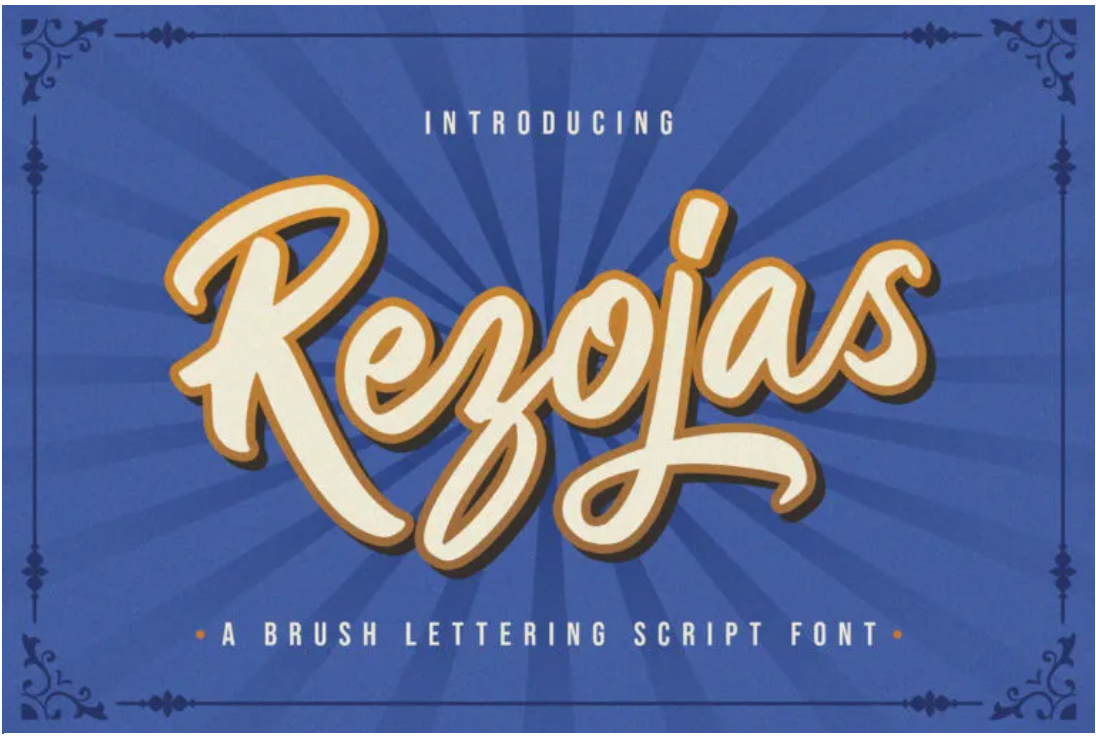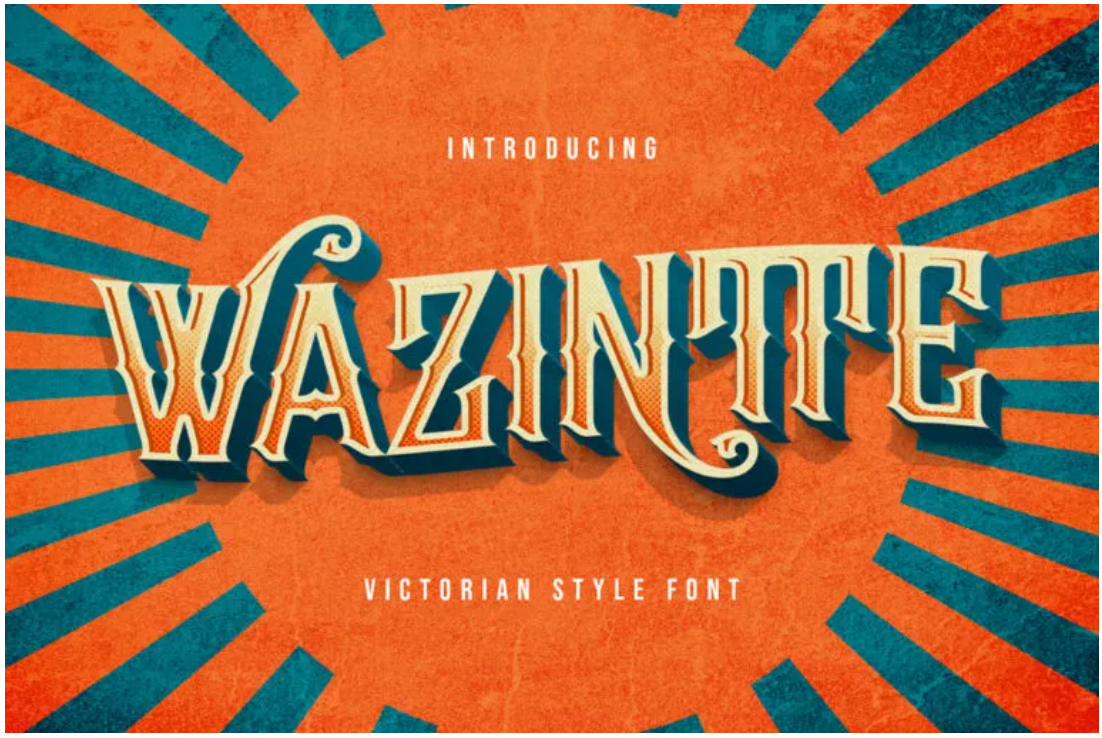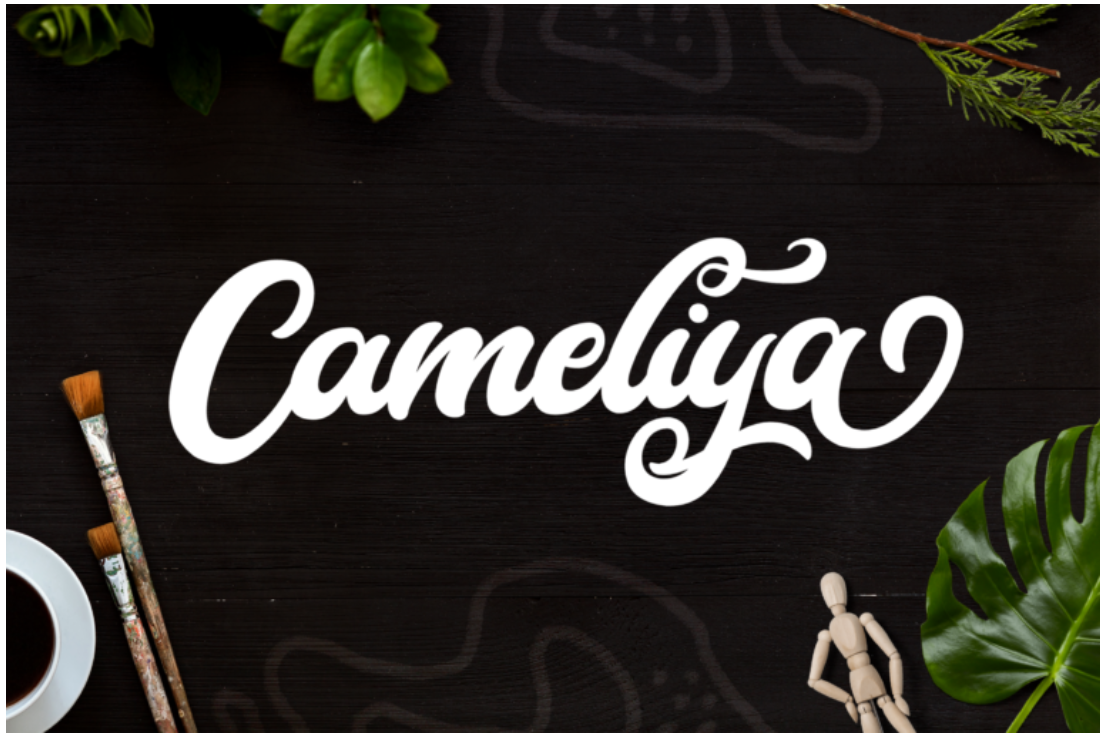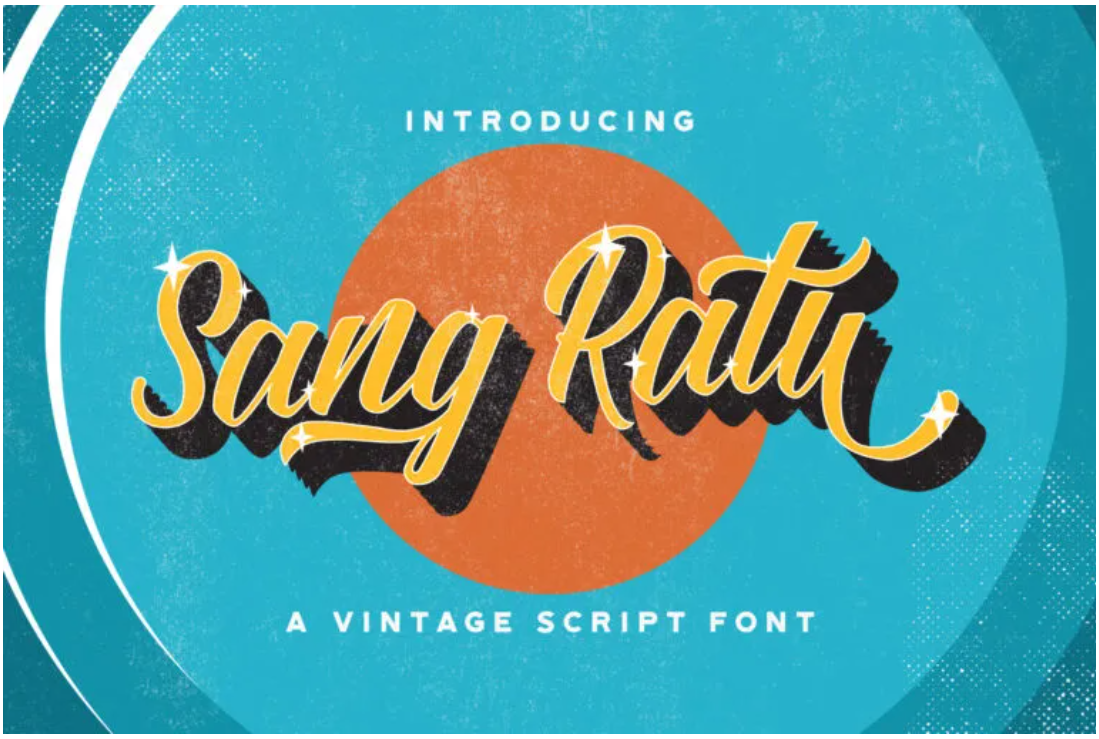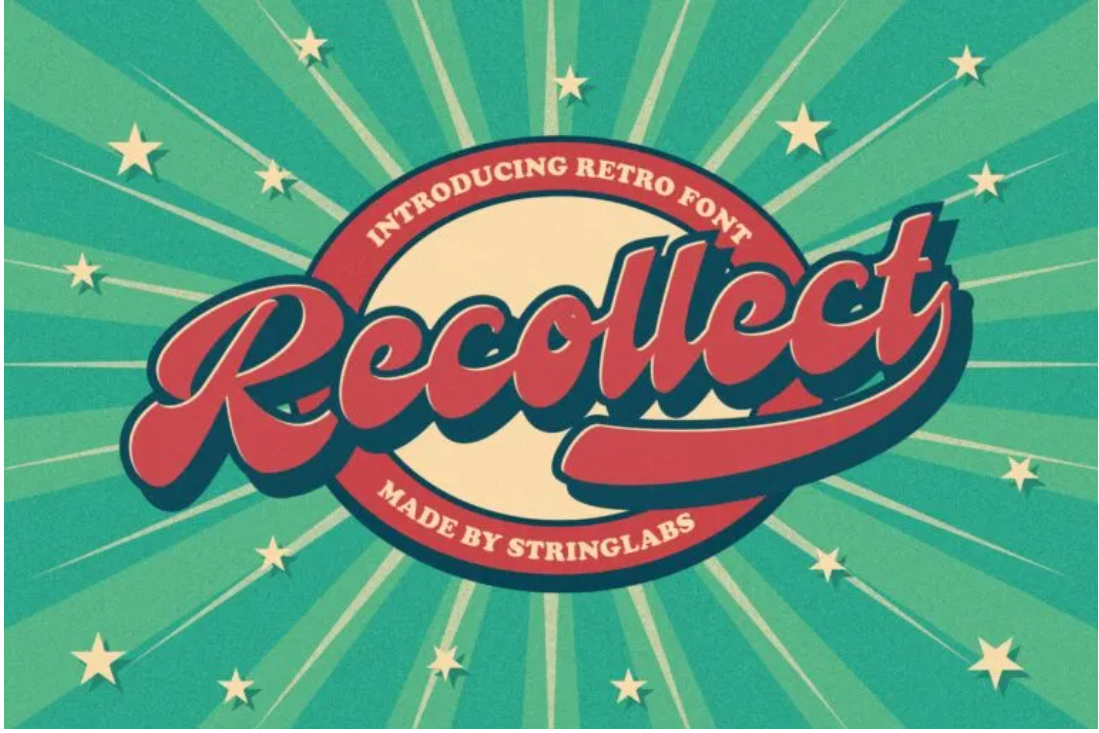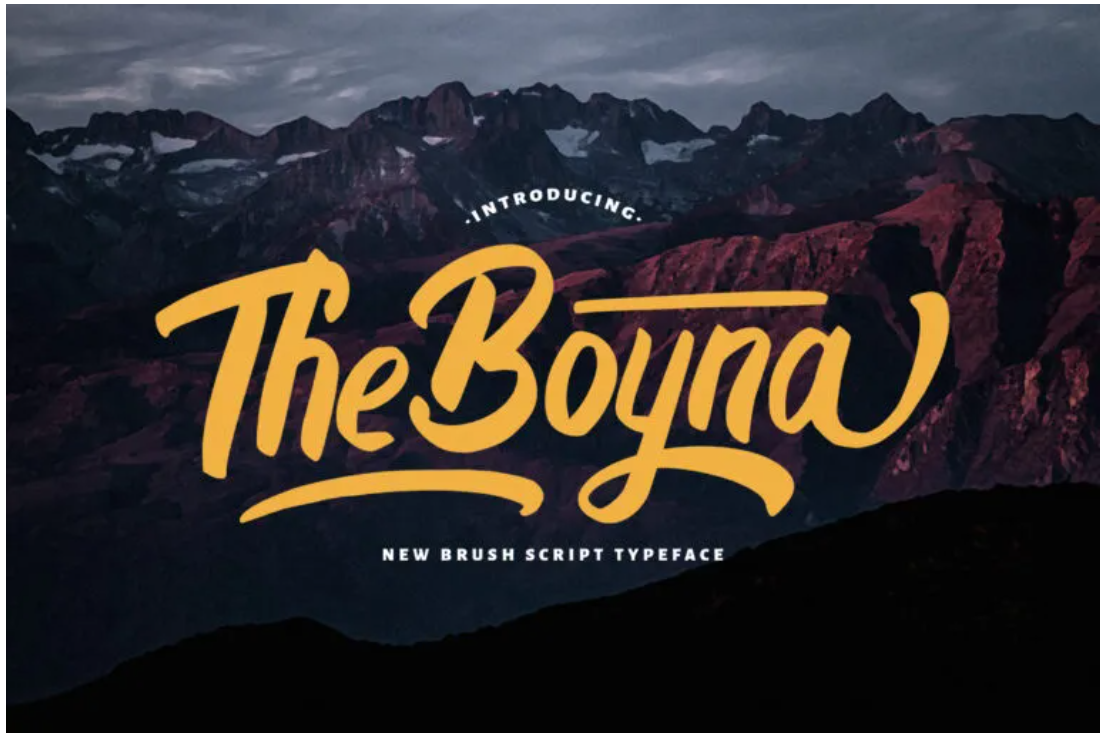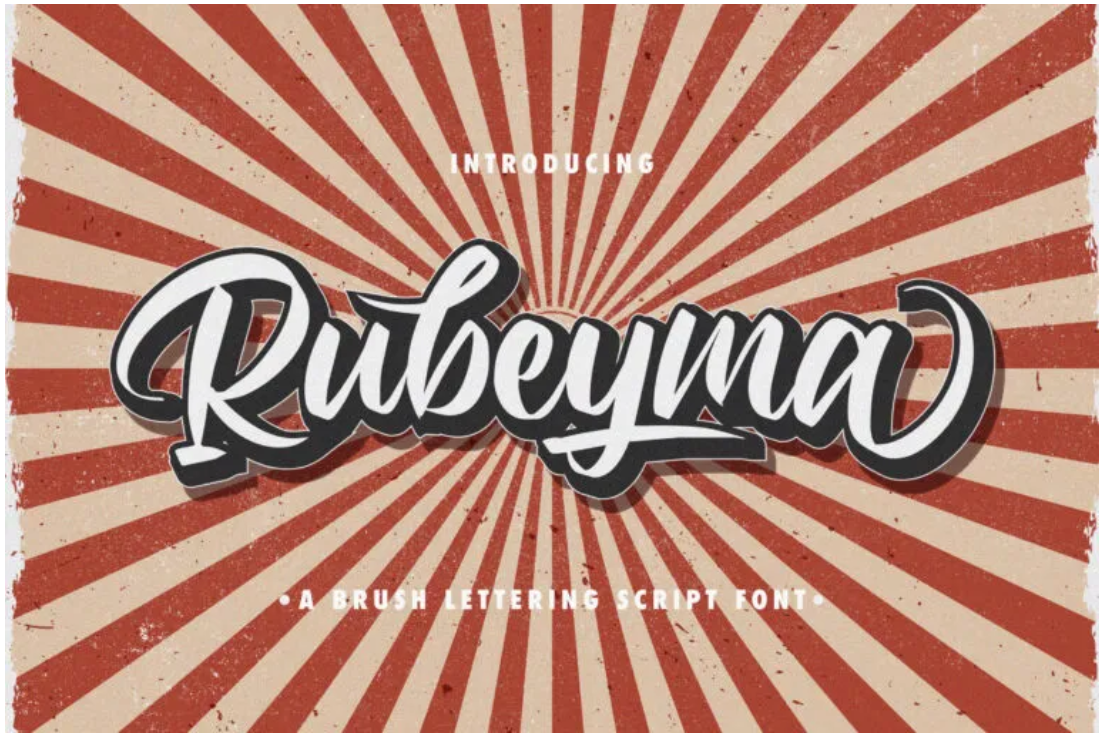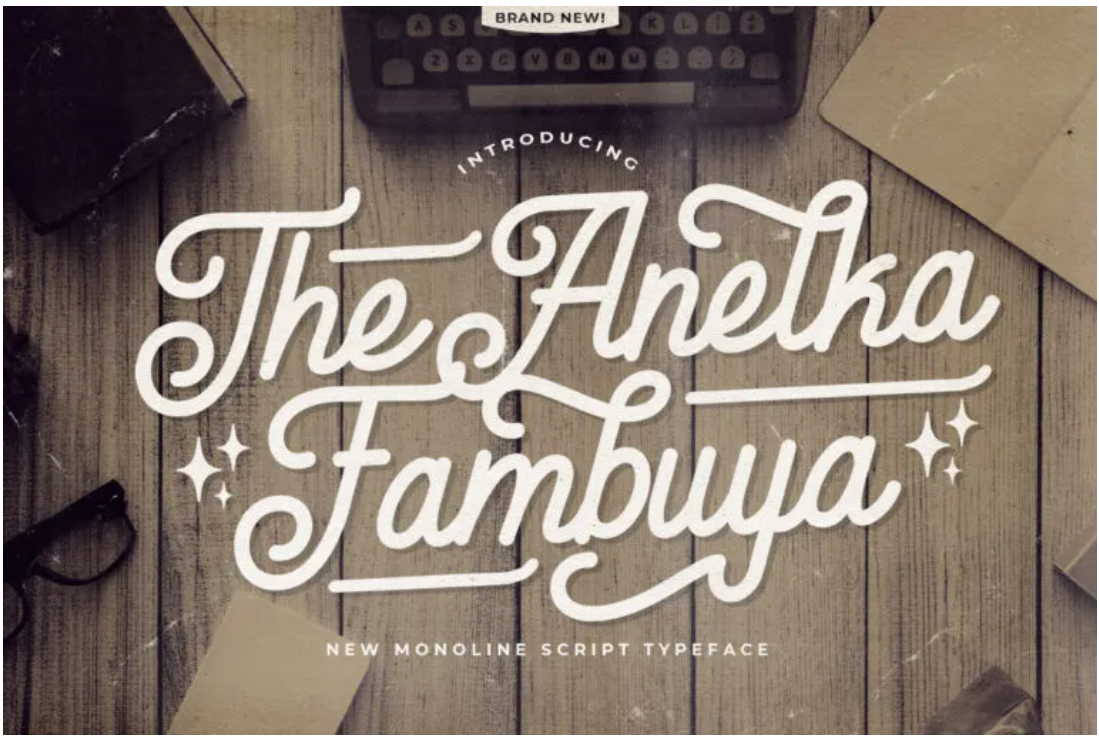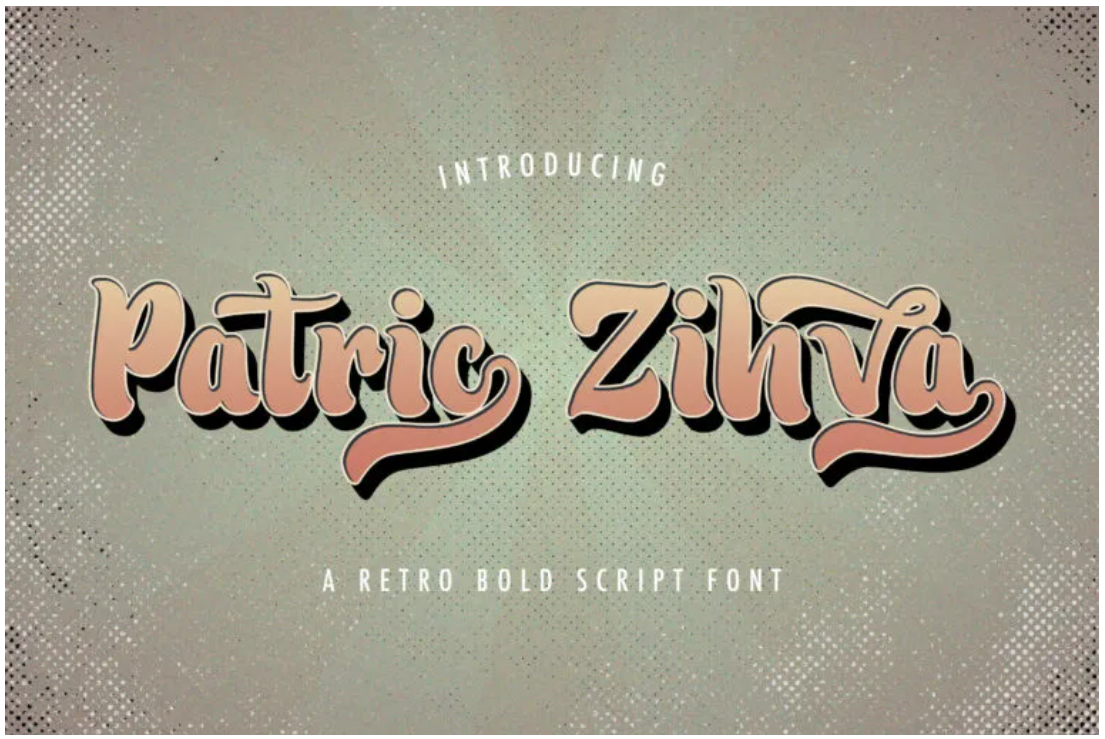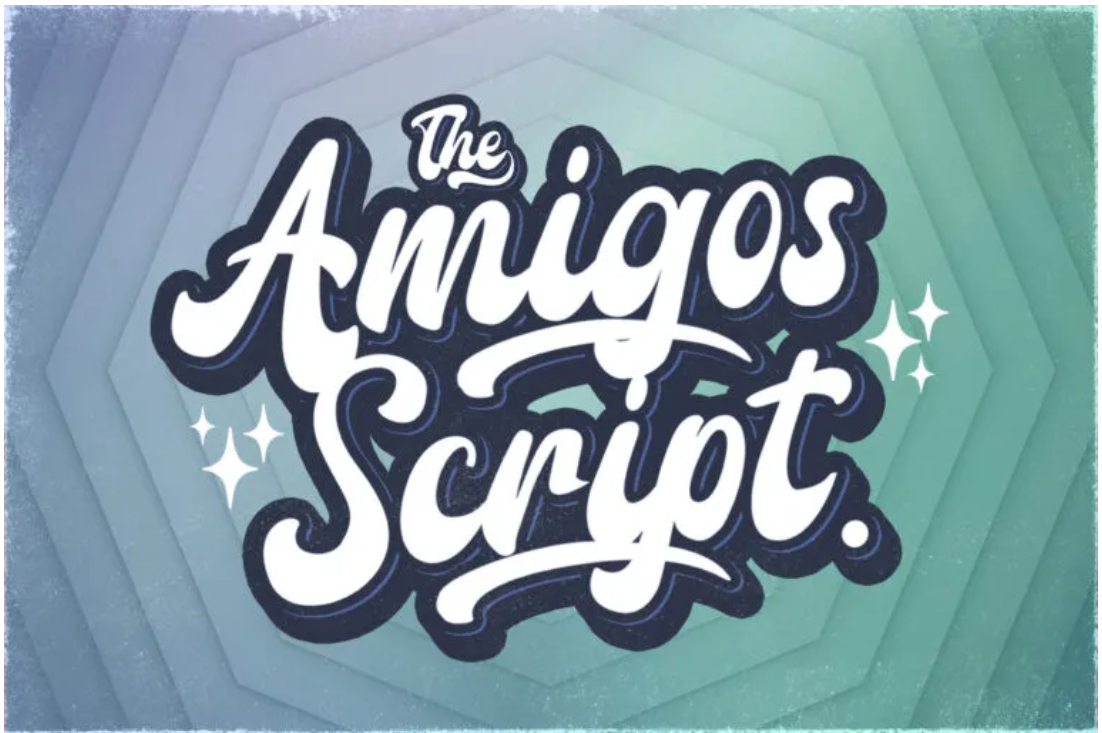
20 Vintage Cartoon Font Style That Will Never Be Out of Trend
A vintage cartoon font is another retro typeface that is always in style. Many people nowadays employ old fonts for great branding, especially cartoon projects. The unusual design of the typeface may provide a current look with old-fashioned taste. So, if you’re working on a project like this, read on to learn more.
20 Vintage Cartoon Font Style Options You Can Try
Below are some options to make your imaginative creations fascinating!
1. Vintage King
Vintage King, one of the most incredible contemporary serif types, might be suitable for your project that requires a vintage cartoon font. The lively shape creates a more outstanding look. Vintage King font is appropriate for various industries, such as automotive magazines, matches, and handmade boots.
2. Antapin
The powerful and bold shape of Antapin could be the best option for a vintage font. It has a wavy or curved shape that produces an exclusive style. In addition, Antapin is also perfect for wedding invitations and women’s magazine design projects.
3. Roulette
A bold font is always right! That is how Roulette fits your cartoon project, which needs an old-style touch. In addition, the curved and bold shape creates more creativity and looks alive. But worry not, because mug and bakery shop designs may look fascinating by applying the Roulette typeface.
4. Wazintte
Wazintte is one of the Victorian styles that is suitable for vintage cartoon font. It creates the feeling of fun retro and provides a fantastic antique look. The details of the typeface contain a romantic and classic design that makes it more stunning. Apply this font to various designs for beer shops, tattoo artists, etc.
5. Rubeyma
Another bold font that never gets old is Rubeyma. It is classic, yet vintage. Use Rubeyma for your project, such as coffee bottles and food promotion posters. So, let’s make your project successful with the unique vintage style of this font!
6. Cameliya
Are you looking for a vintage cartoon font with Private Use Areas (PUA) encoded? If so, Cameliya is the answer! You can obtain all of the letters and swashes because the incredible alternates assist you in producing a fantastic design. Therefore, let’s use this typeface on apparel such as beanies, t-shirts, and tote bags.
7. Boyna
Boyna is a new brush script typeface showing an unusual vintage feeling. Add this font to your products, like cushion pillows and vinyl record cover designs. Then, prove your creativity skill in your project by using this font!
8. Rezojas
Get your perfect lettering script font with Rezojas. The nostalgic feeling of its shape will make your project more alive. The bold line of Rezojas fits in any design for skateboard and barbershop.
9. Retrowave
The most famous and used vintage cartoon font is Retrowave. The ligature and alternates form give the character set a more antique items vibe. Furthermore, this typeface is used in several coffee cup designs because it stands out.
10. Kevin Ghal
If you need help finding a modern and classic vintage-style font, try using Kevin Ghal. The font is a new form of Blackletter that shows nostalgic feelings. For example, the typeface looks lovely on the clothing brand tag.
11. Bethany Kibang
Bethany Kibang exists to make your vintage cartoon font more playful. The shape is wavy and circular, which provides a distinct nostalgic look. Besides cartoon projects, you can apply Bethany Kibang to music and photo studio design.
12. Akidan Hatory
Another unique brush typeface that will make your design marvelous is Akidan Hatory. The vintage design increases your creativity. Moreover, Akidan Hatory has other applications for several products, such as an ice cream poster promotion and a stylish hair price list book.
13. Oaklash
Show off a trendy and sporty 80s feel with Oaklash. Now is the moment for your project to become a vintage lover’s favorite. Furthermore, Oaklash is ideal for various brands, including coffee businesses, accessories, and biker organizations.
14. Hadfim
Use Hadfim as your best vintage cartoon font look! This classy Victorian-style typeface is distinct from other antique forms. The style of the font is commonly used by fashion and magazine brands.
15. Amigos Script
Amigo Script typeface is one of the types of retro bold handwritten. It looks perfect and bright, along with any color. Despite its distinct look, Amigo Script is frequently used for new music album covers.
16. Rategin
Keep your latest design look with Rategin, the new vintage script font. Even though it displays nostalgic feelings, the unique curved and rounded shape makes the design stunning. Therefore, many people use this font for music festival posters and placard names of specific professions.